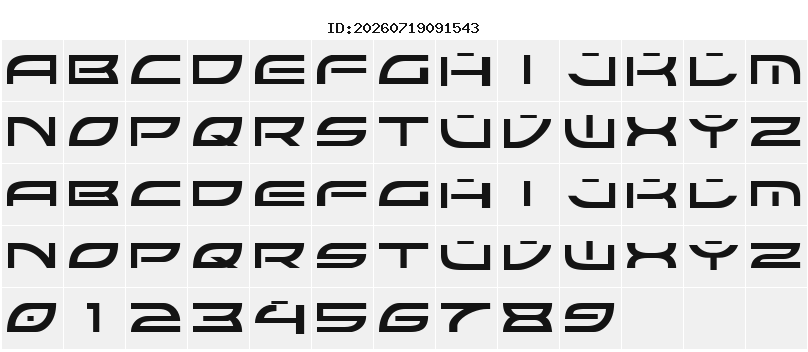
Colony Wars Preview
• Font Name: Colony Wars
About Colony Wars.ttf
Colony Wars.ttf is a modern, elegant sans-serif font designed for ultimate readability and visual harmony. Perfect for branding, headlines, web design, and print materials.